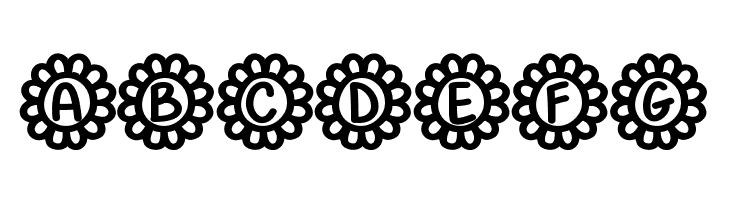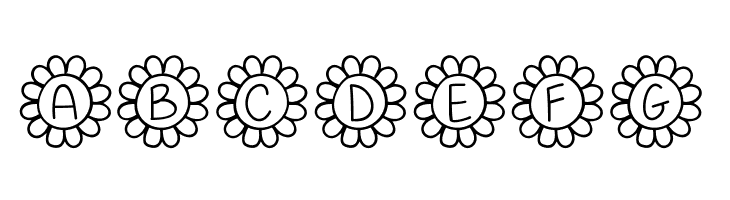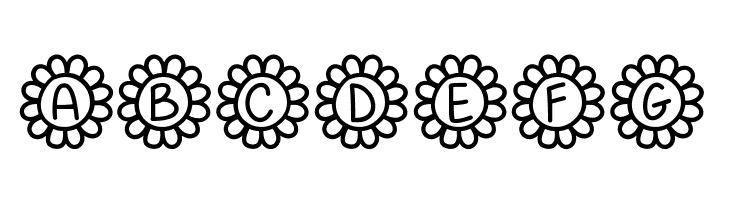
A whimsical font with characters enclosed in flower shapes, perfect for playful designs.
A decorative font with characters enclosed in flower-like shapes, offering a playful and vibrant style.
A decorative font with hollow characters encased in flower shapes, ideal for creative projects.
A decorative font with characters encased in flower shapes, offering a playful and retro aesthetic.